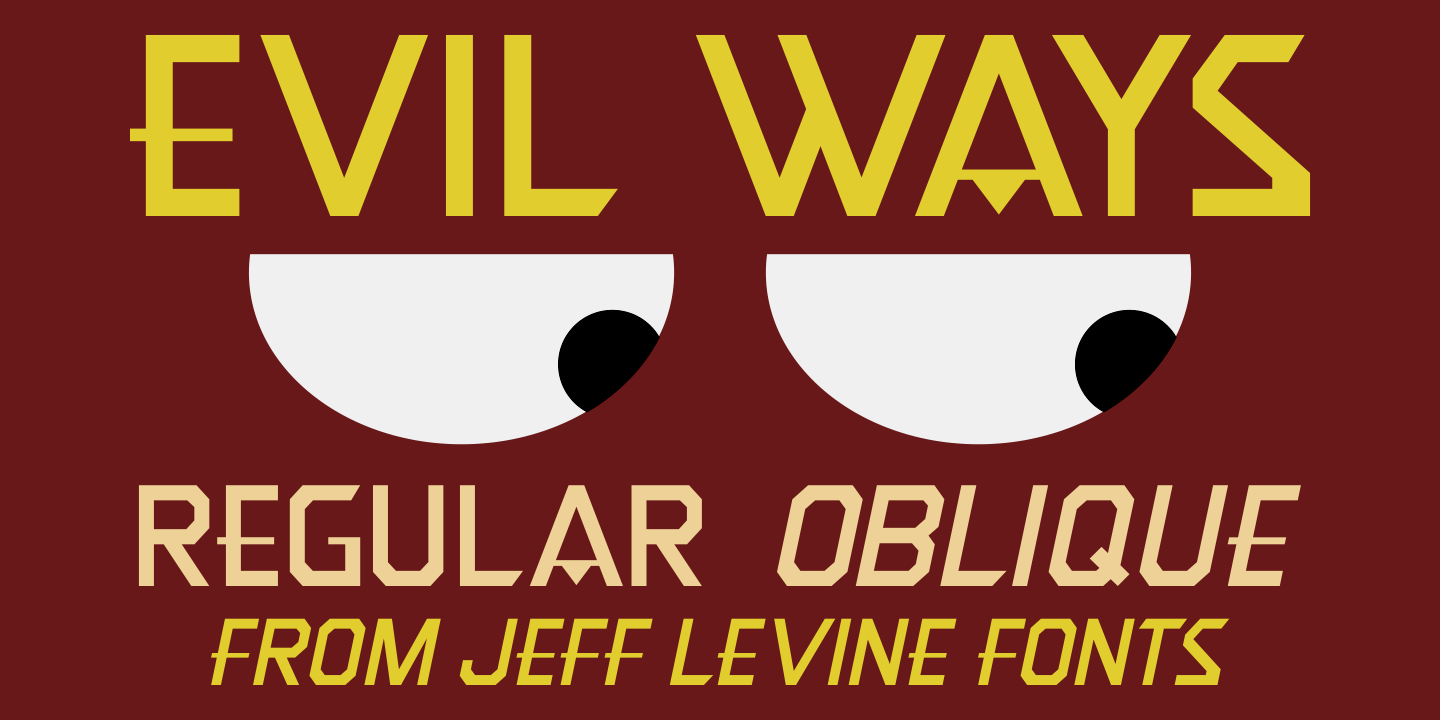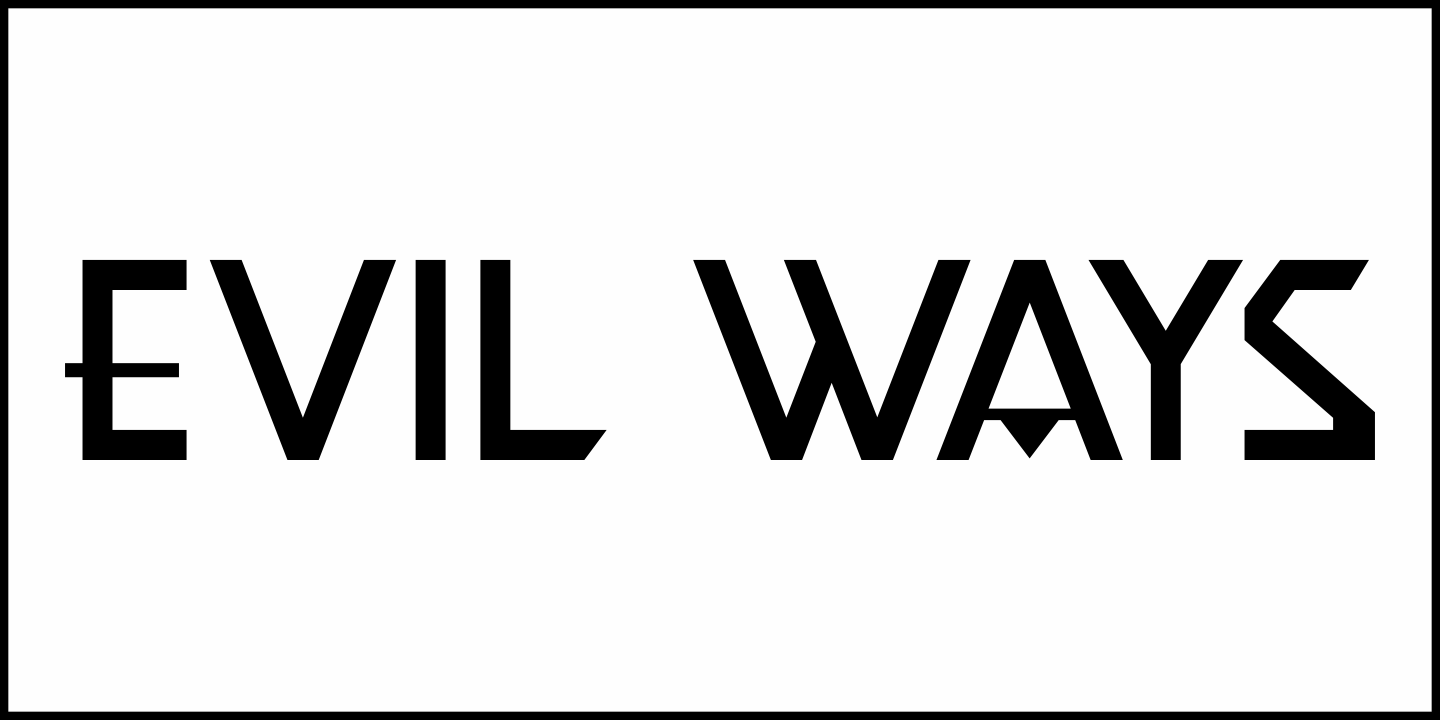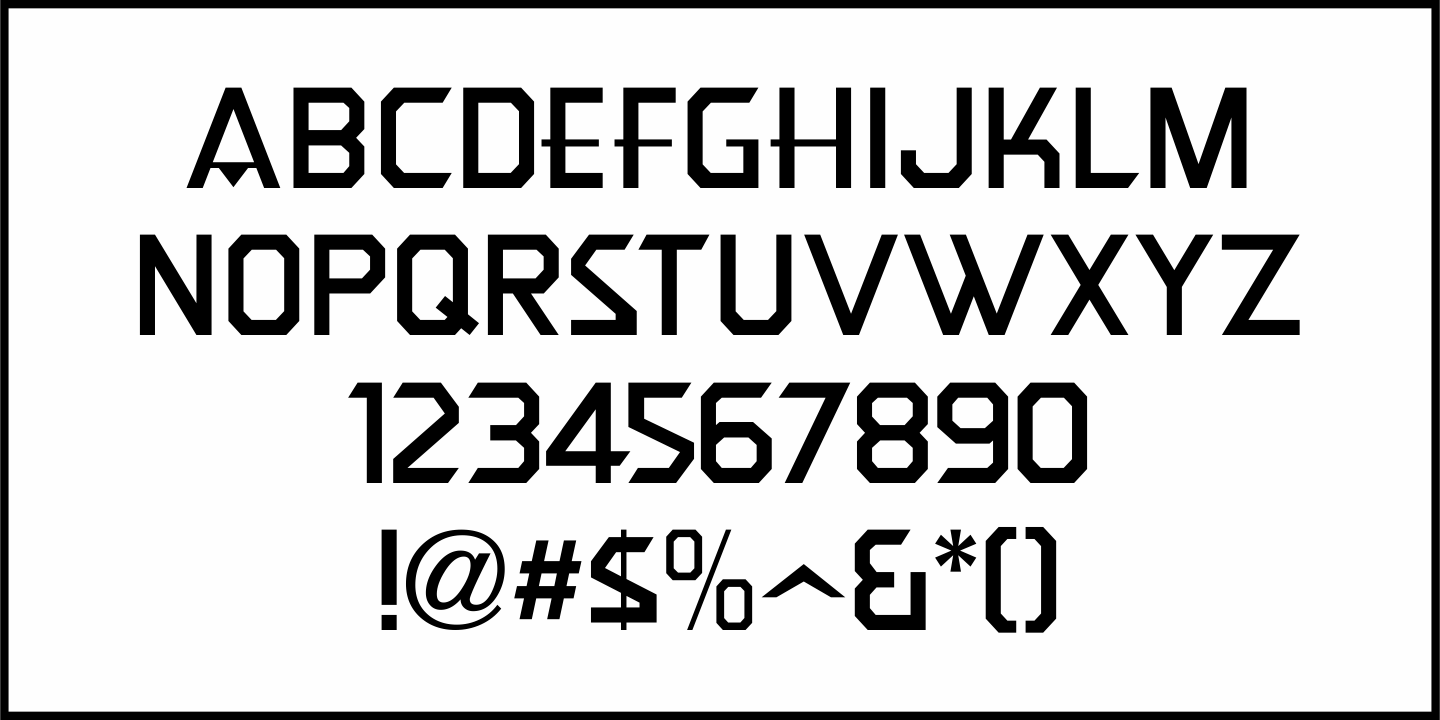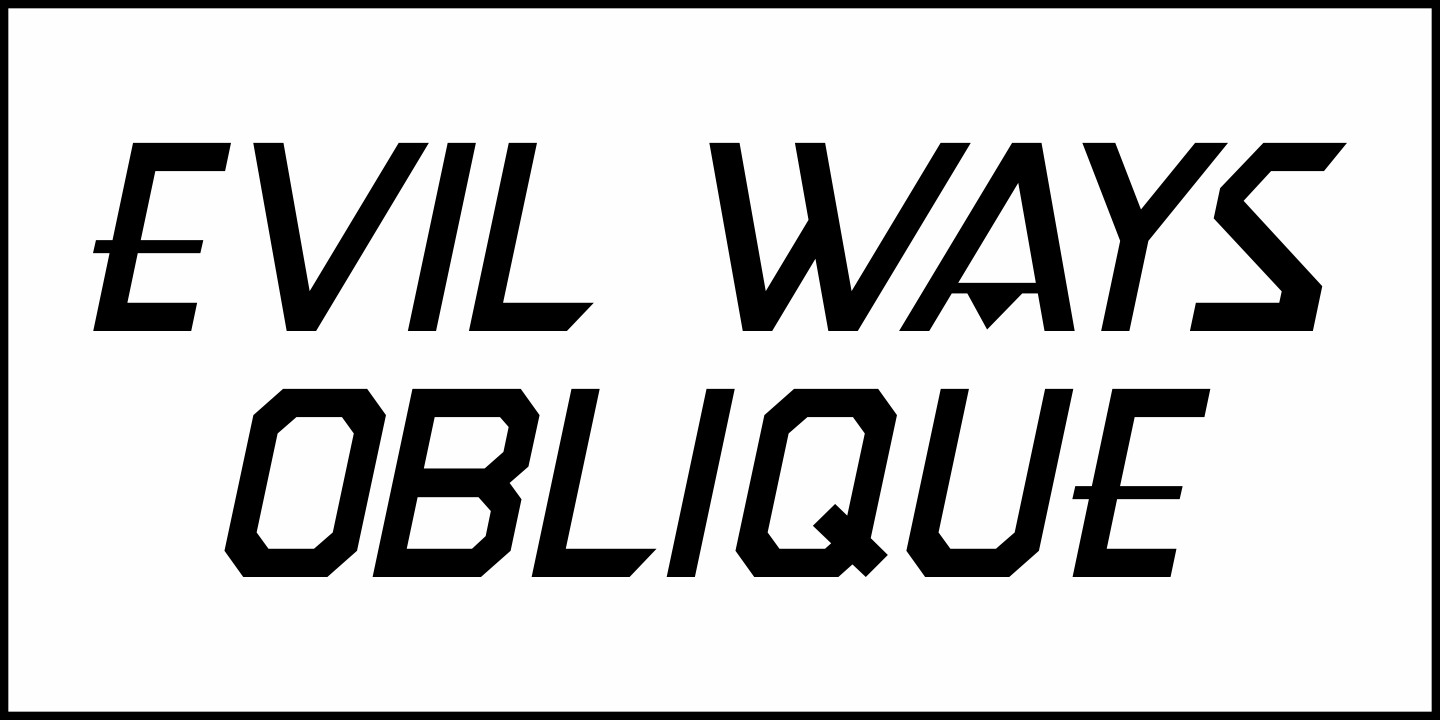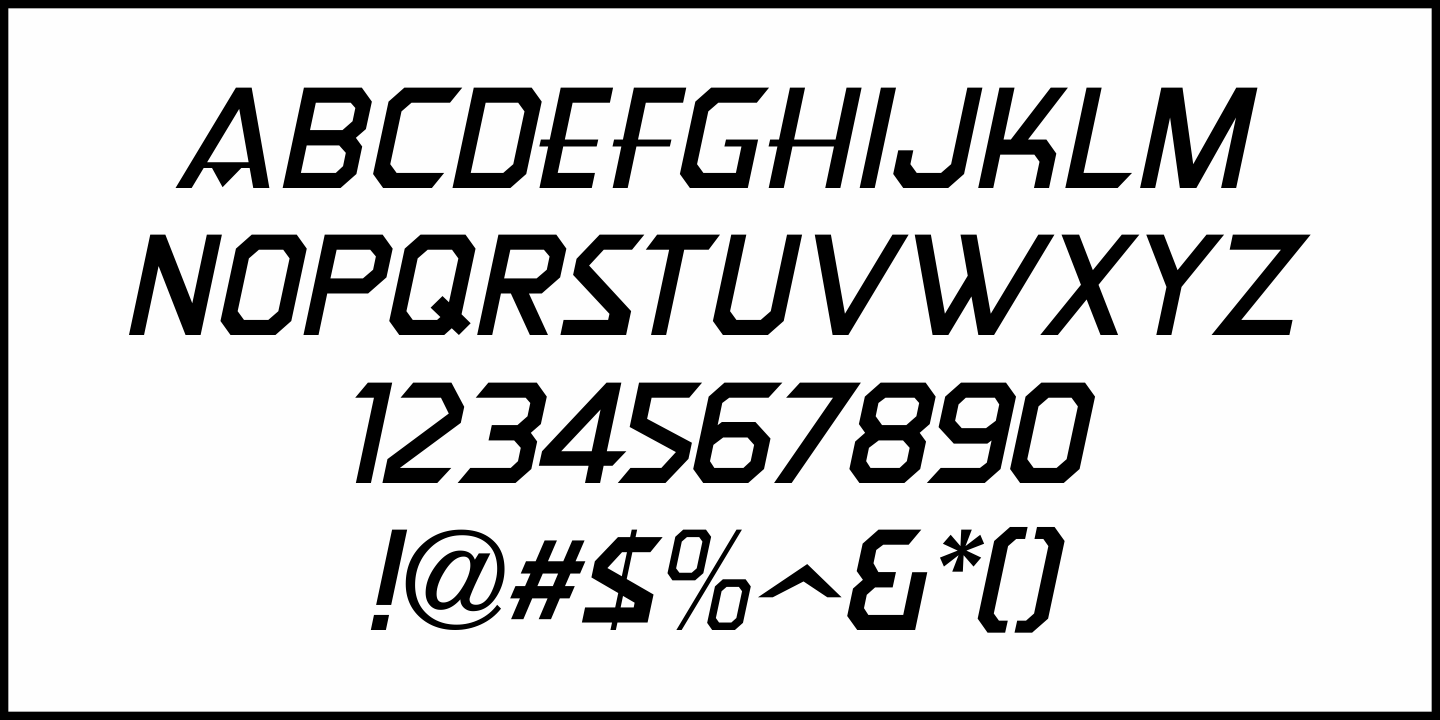
Evil Ways
The April 8, 1932 issue of The Film Daily ran an ad for a film entitled "The Sin of Lena Rivers". Hand lettered in a block style of chamfered characters, it is reminiscent of the 1920s, but still carries a touch of Art Deco influences with the thinner and extended horizontal strokes of the E, F and H.
This retro sans serif design is now available digitally as Evil Ways JNL in both regular and oblique versions.